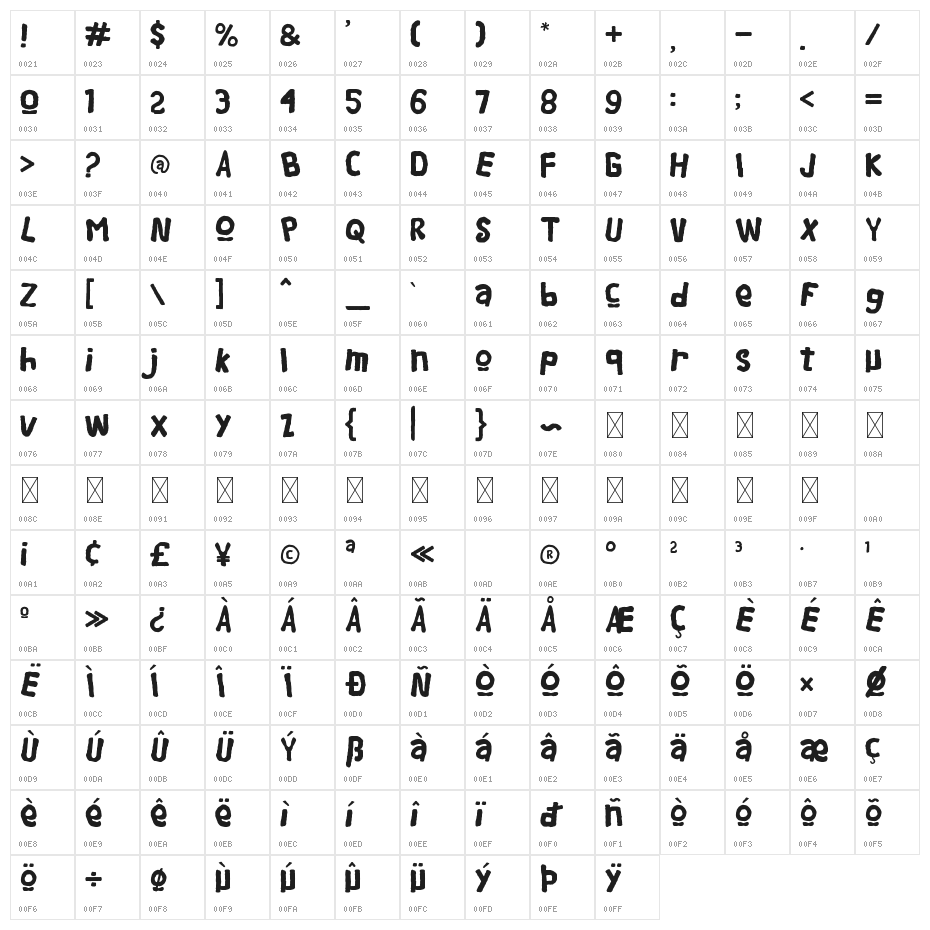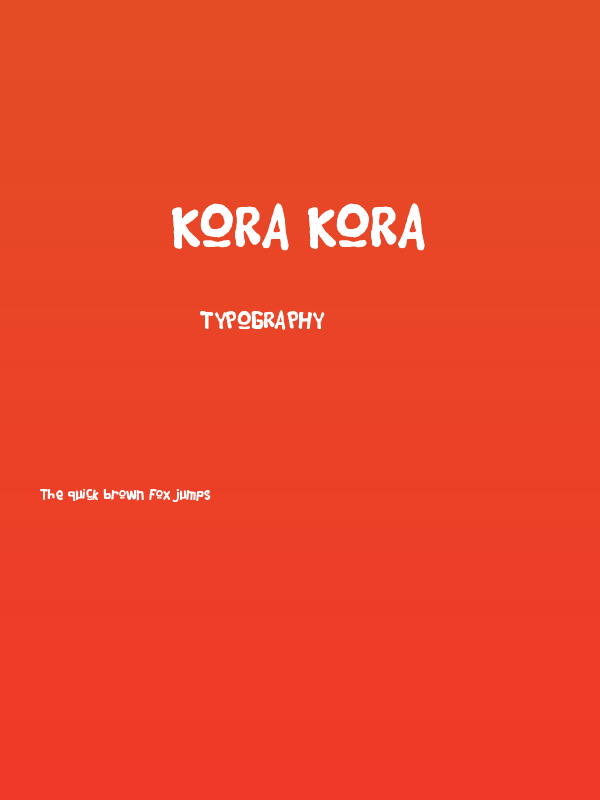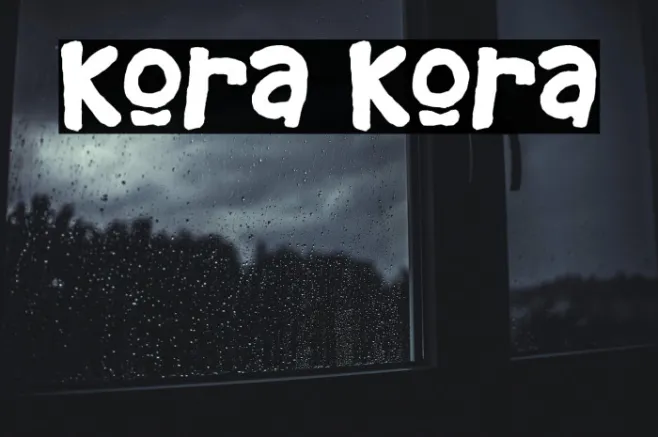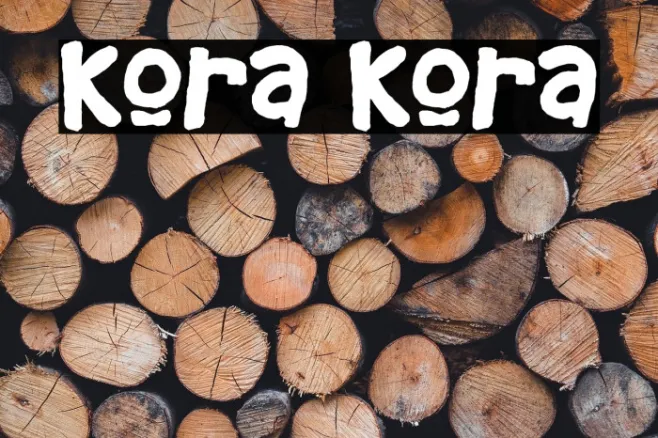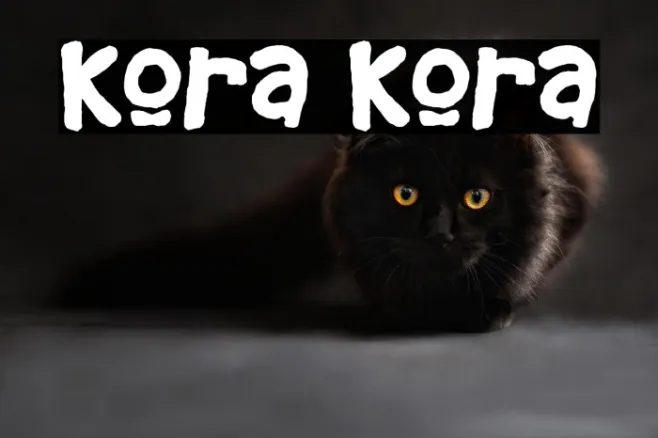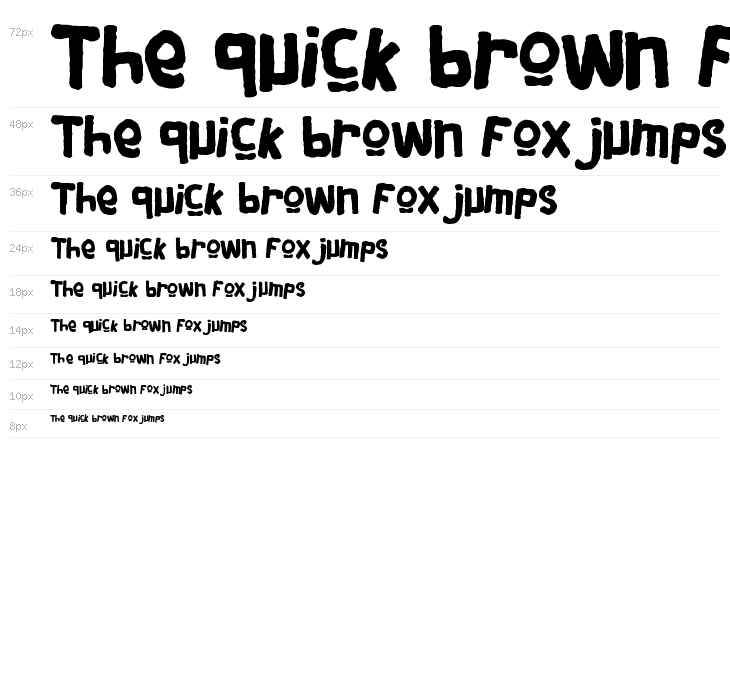
Kora Kora Font
Kora Kora Description
This font features a bold and playful design with a hand-drawn aesthetic. The characters are thick and rounded, giving them a friendly and approachable appearance. The irregular shapes and varying stroke widths add a whimsical and artistic touch, making it stand out in any design. The uppercase and lowercase letters maintain a consistent style, while the numbers and special characters complement the overall look. This font is perfect for projects that require a fun and informal vibe.
| Overall Style | Playful, Artistic |
| Proposed Projects | Ideal for children's books, playful branding, posters, and creative invitations. |